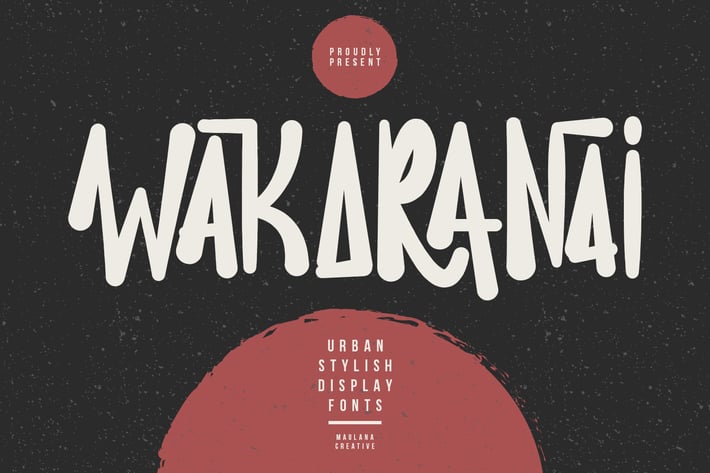
Wakaranai Urban Display Font
Wakaranai urban brush display font, fun character with alternates and ligatures. To give you an extra creative work. Wakaranai urban brush display font support multilingual language.